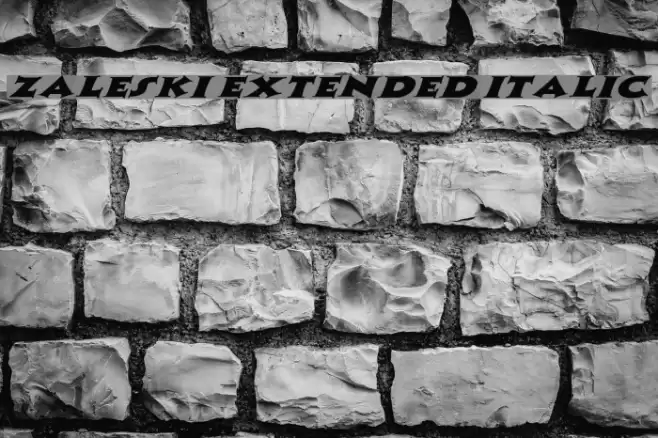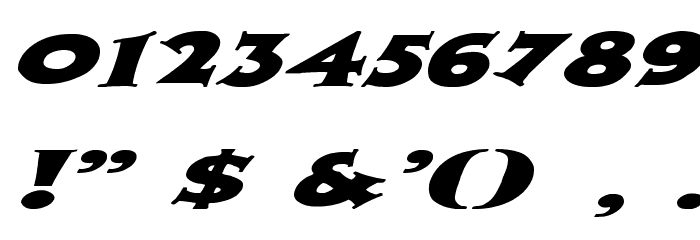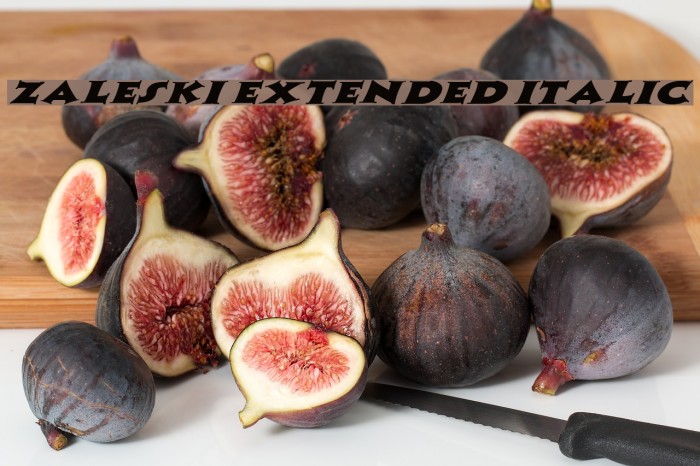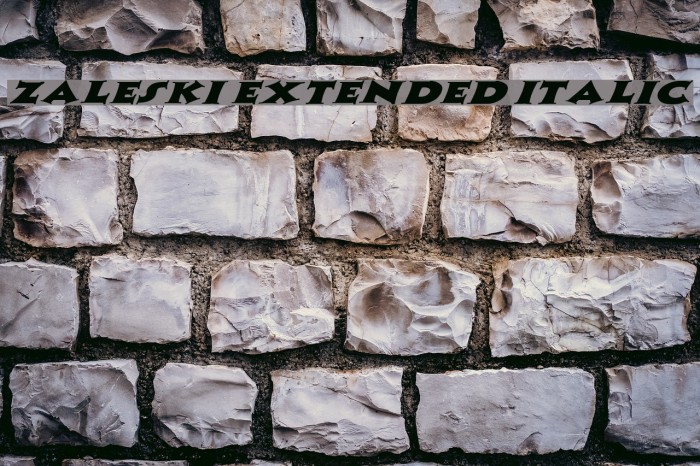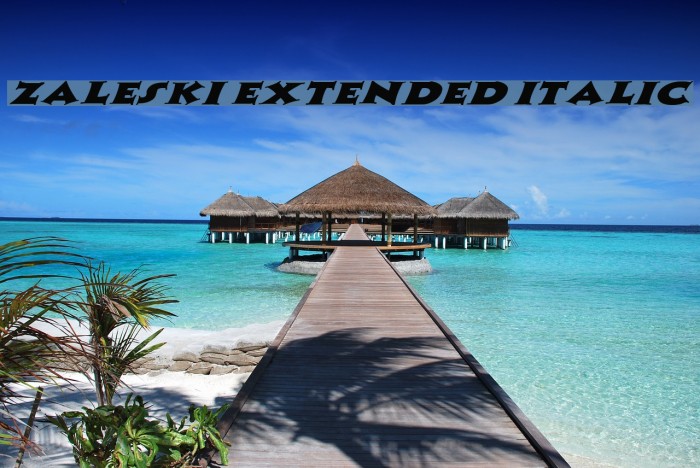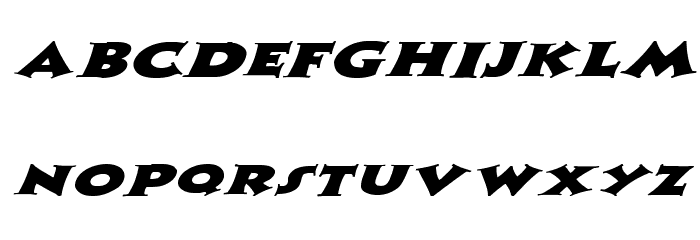
Zaleski Extended Italic Font
Zaleski Extended Italic Description
This font features a bold and dynamic design with a distinct italic slant, giving it a sense of movement and energy. The characters are wide and extended, providing a strong visual impact. The strokes are thick and consistent, contributing to a high contrast between the thick and thin elements. The overall style is decorative, with sharp angles and unique serifs that add a touch of flair. This font is well-suited for attention-grabbing headlines and titles, where its boldness and style can be fully appreciated. The spacing between characters is relatively tight, enhancing the compact and cohesive appearance of the text.
A bold, italic, and extended decorative font with high contrast and tight spacing from Uncategorized fonts.
- Proposed Projects: Ideal for use in branding, poster design, and any project requiring a bold and dynamic headline.
- Width: Expanded
- Character Spacing: Tight